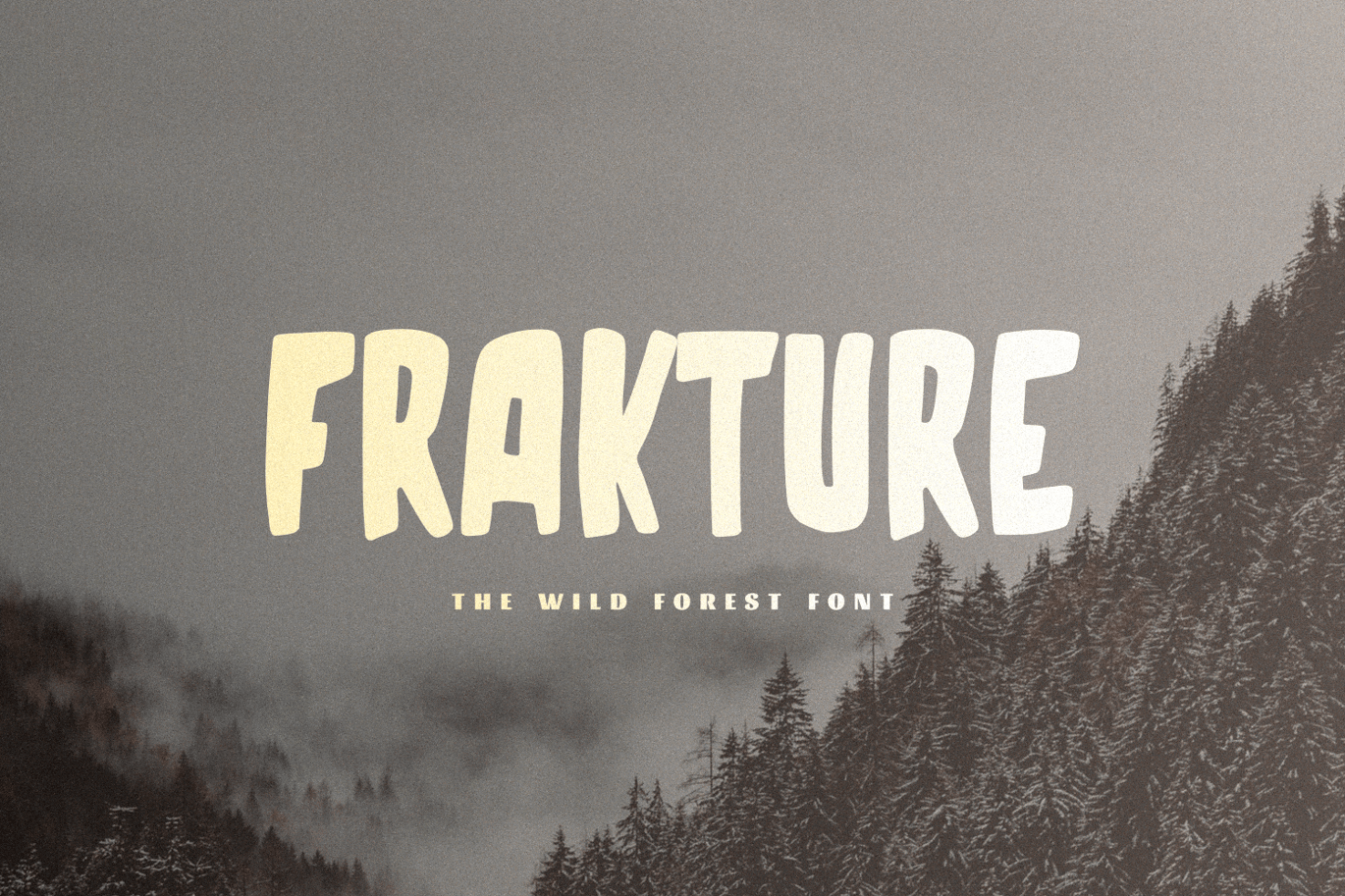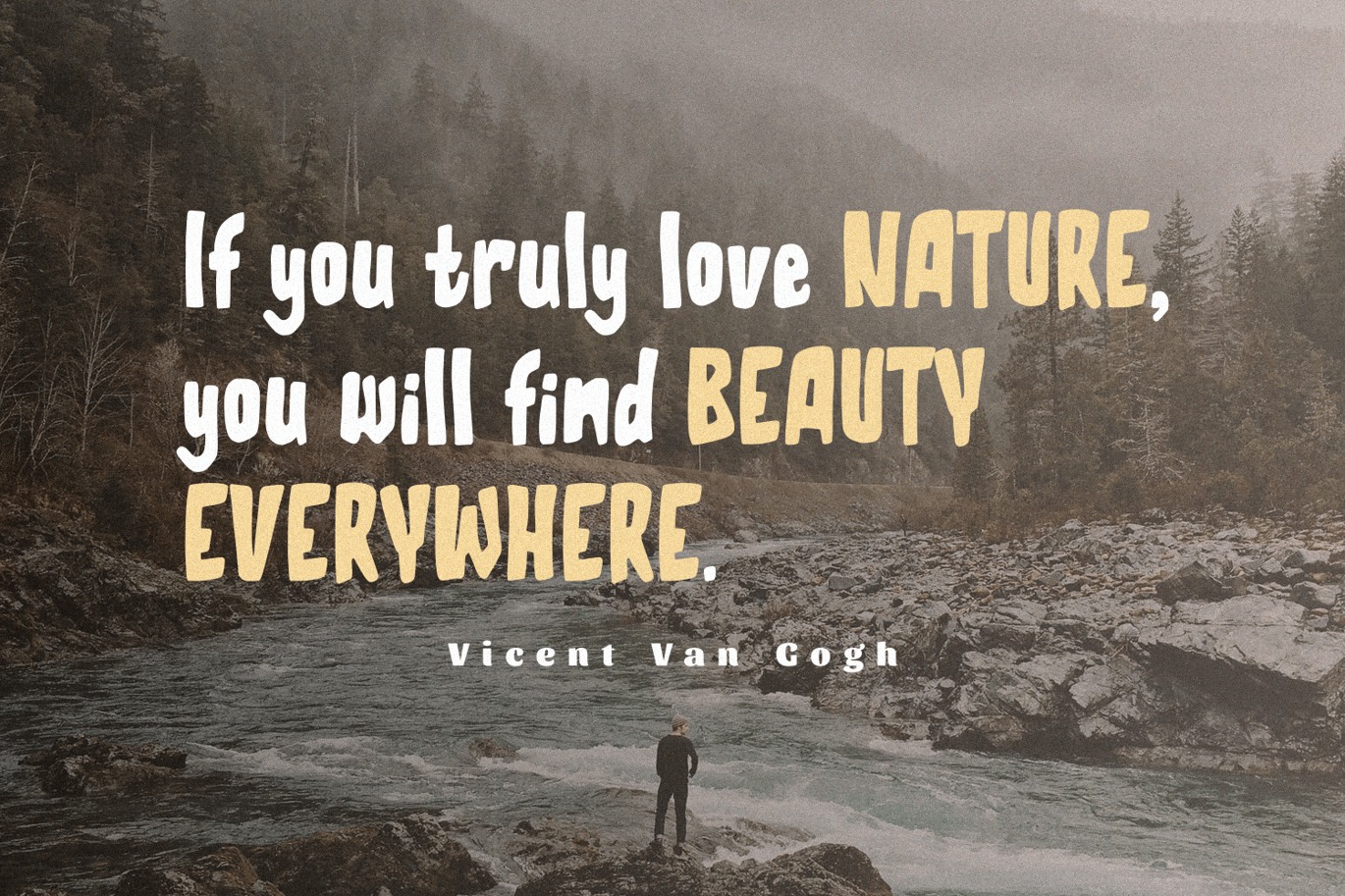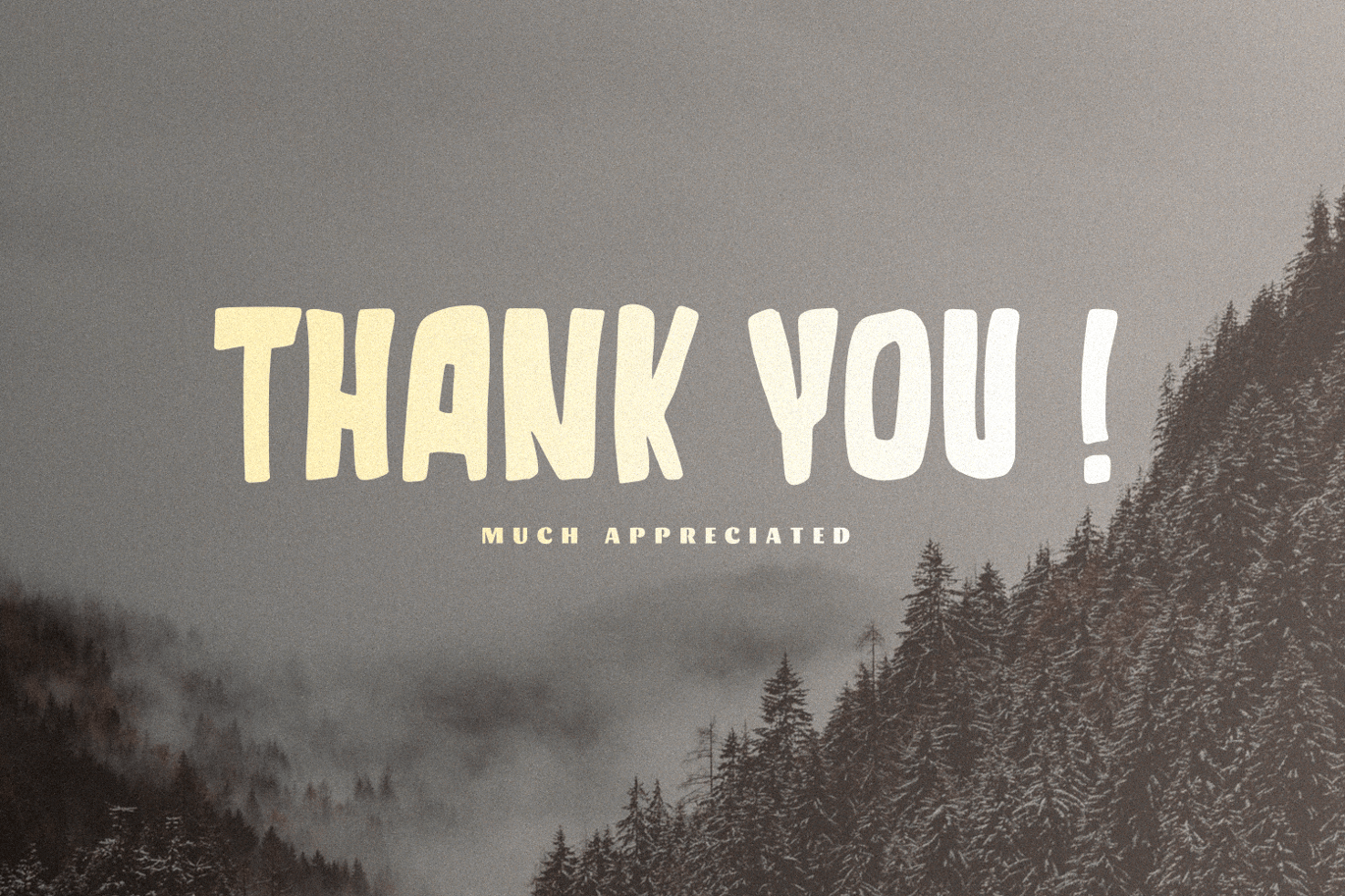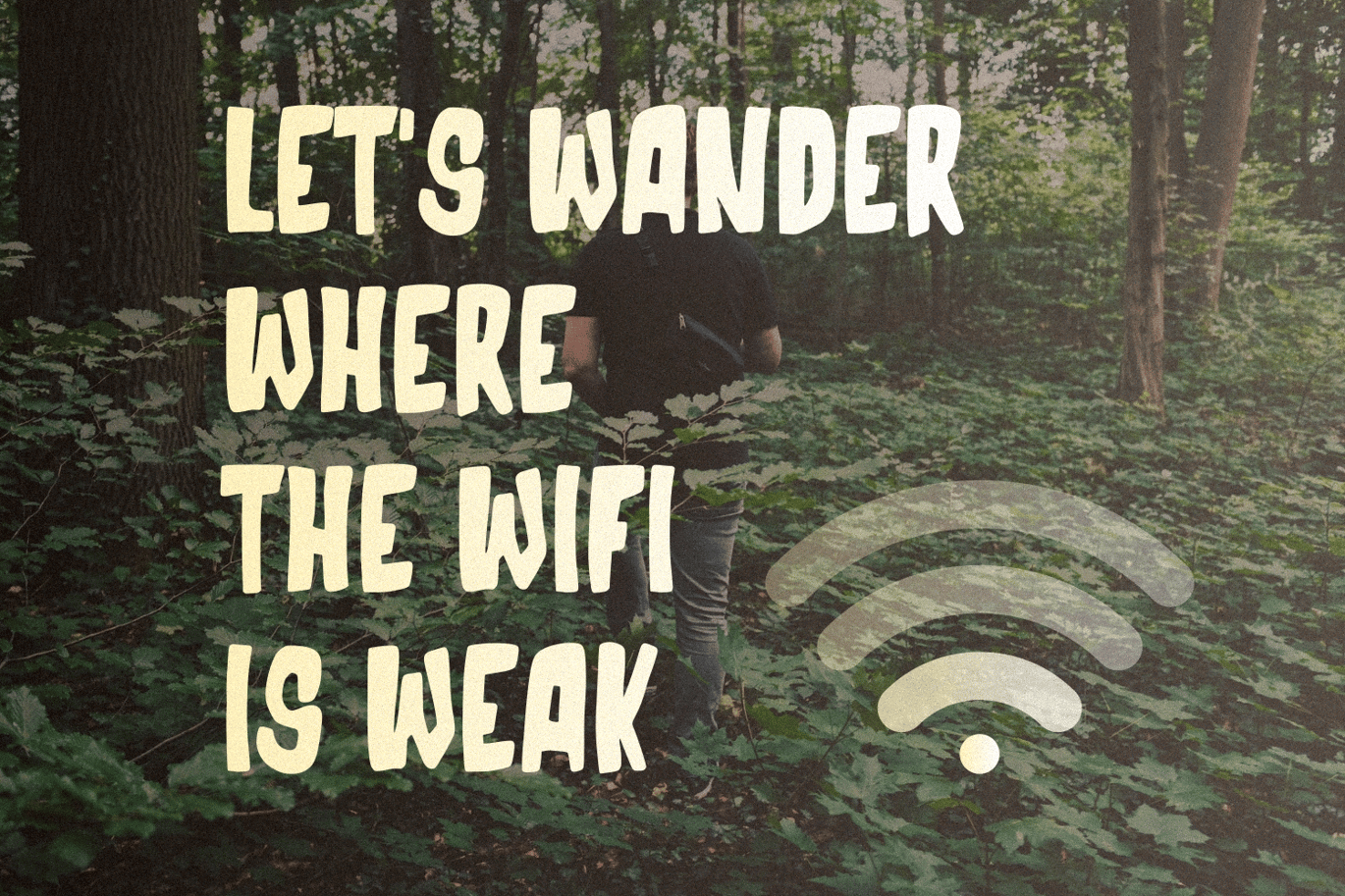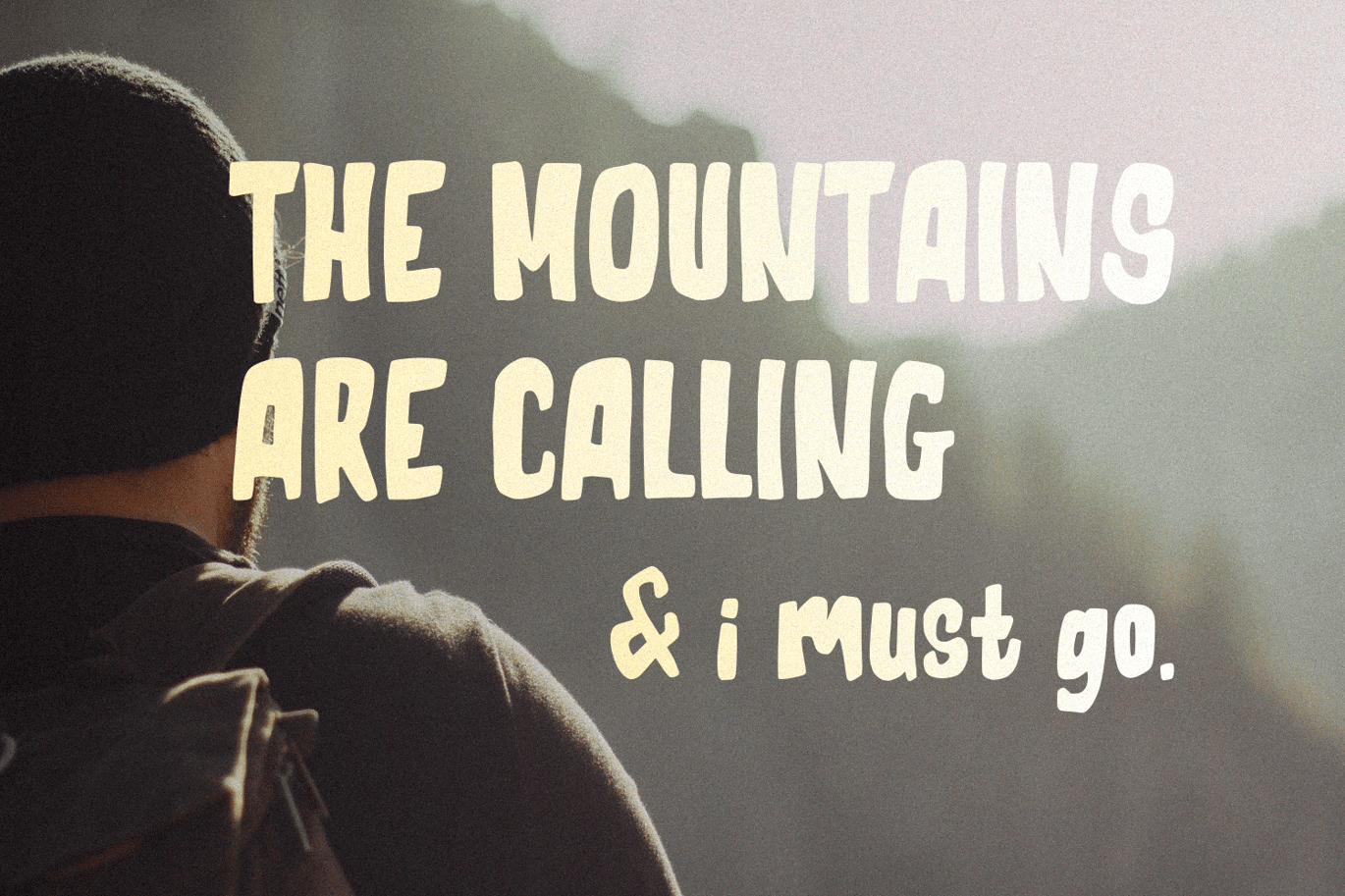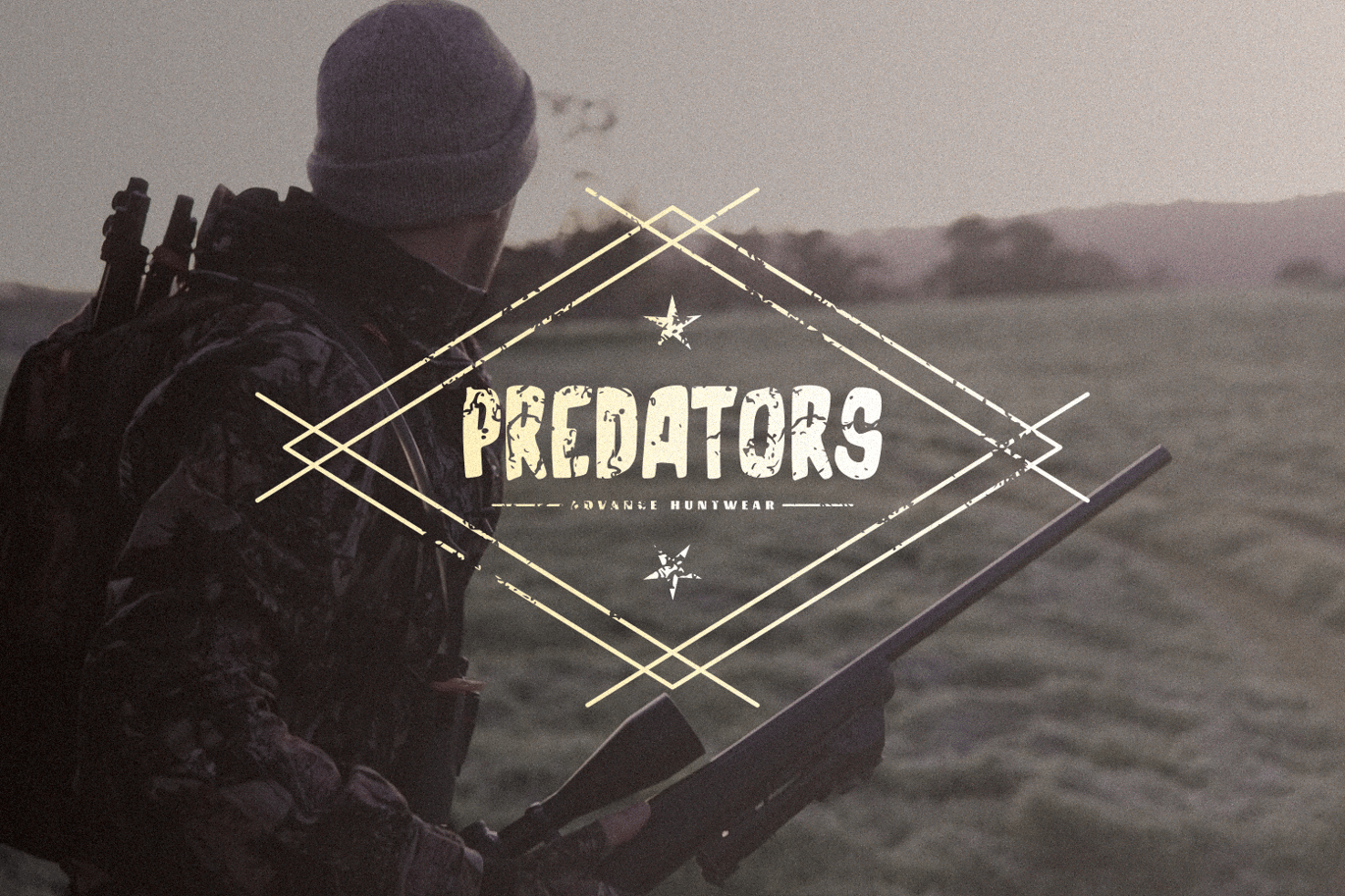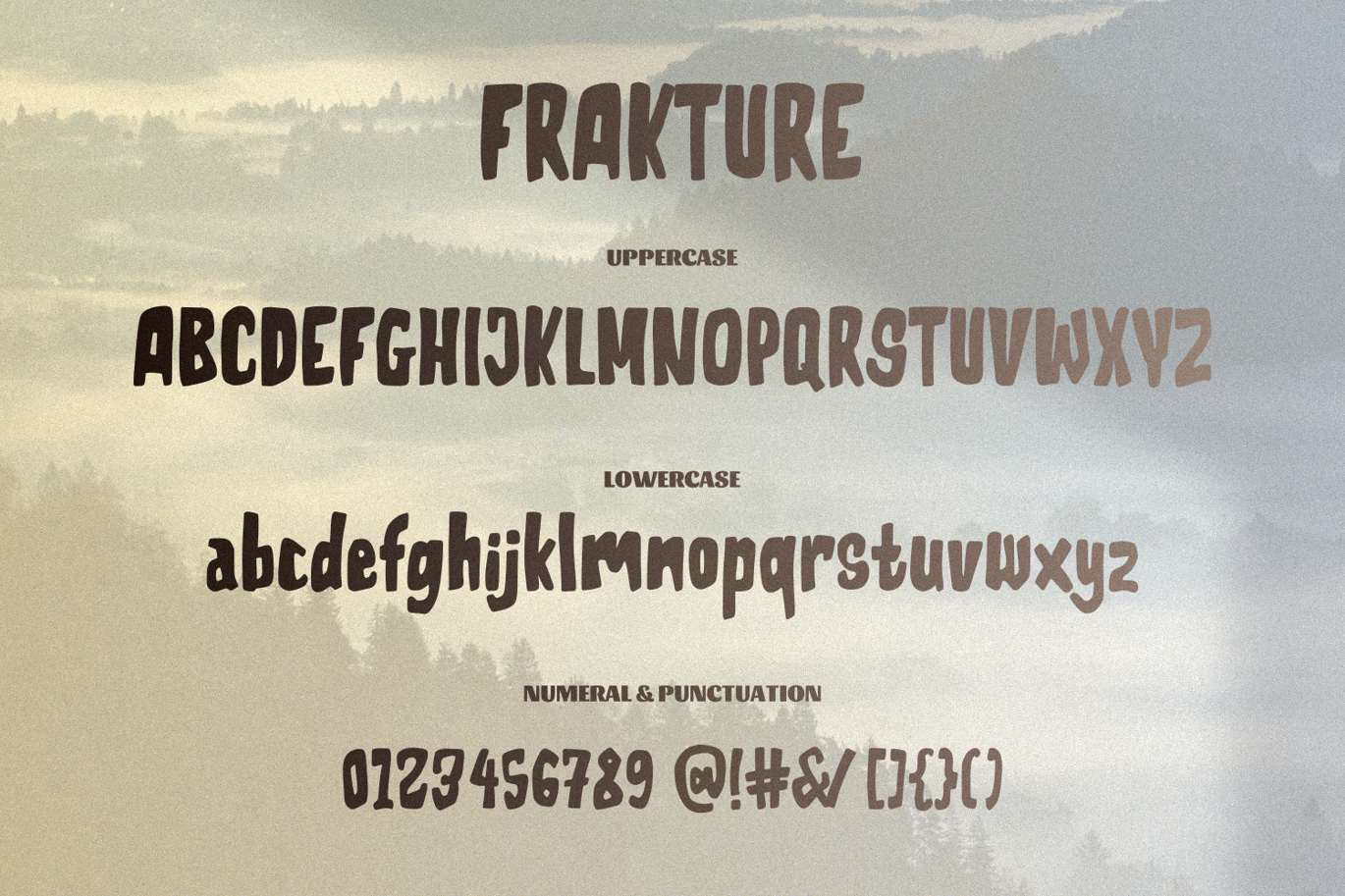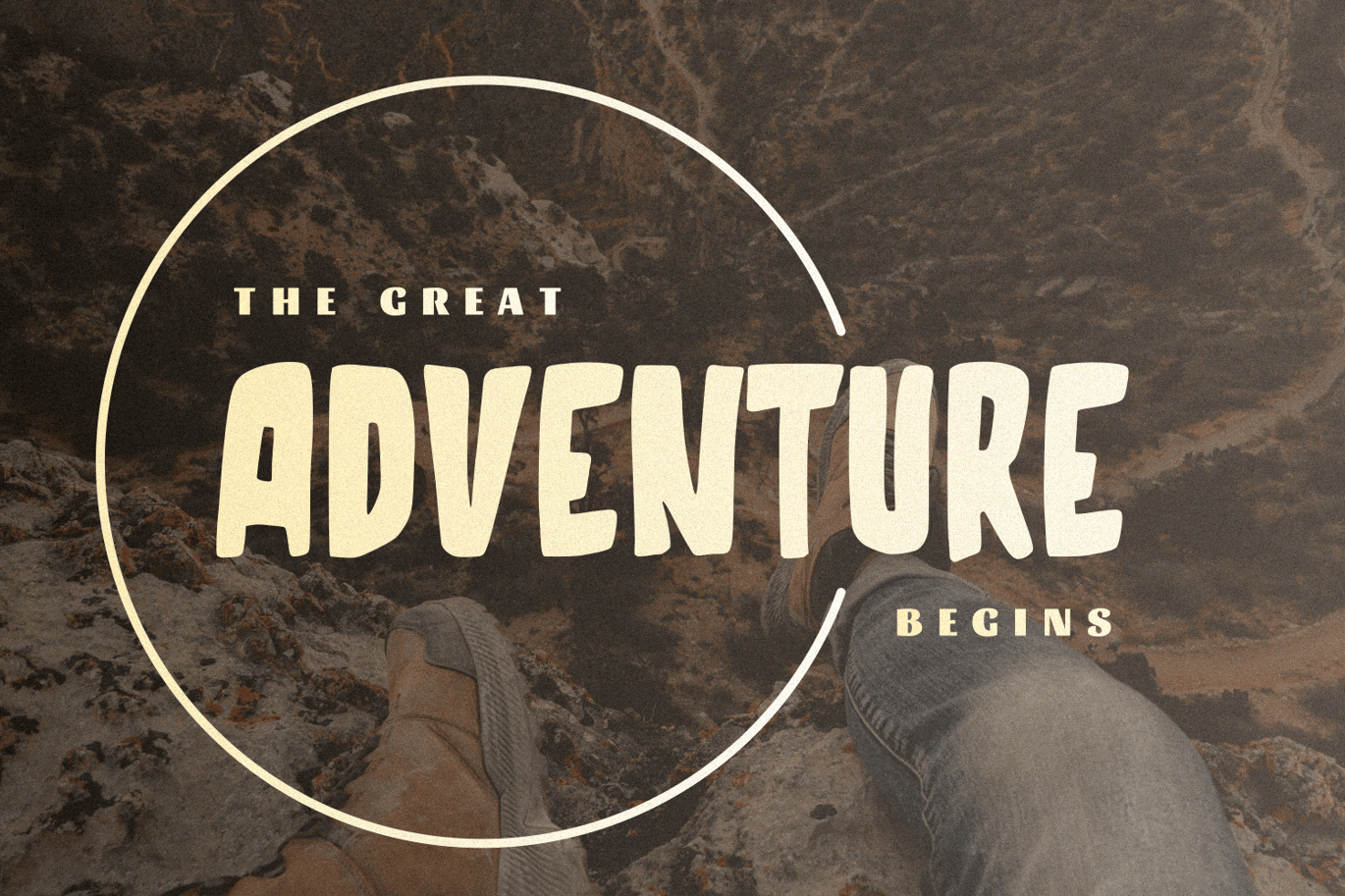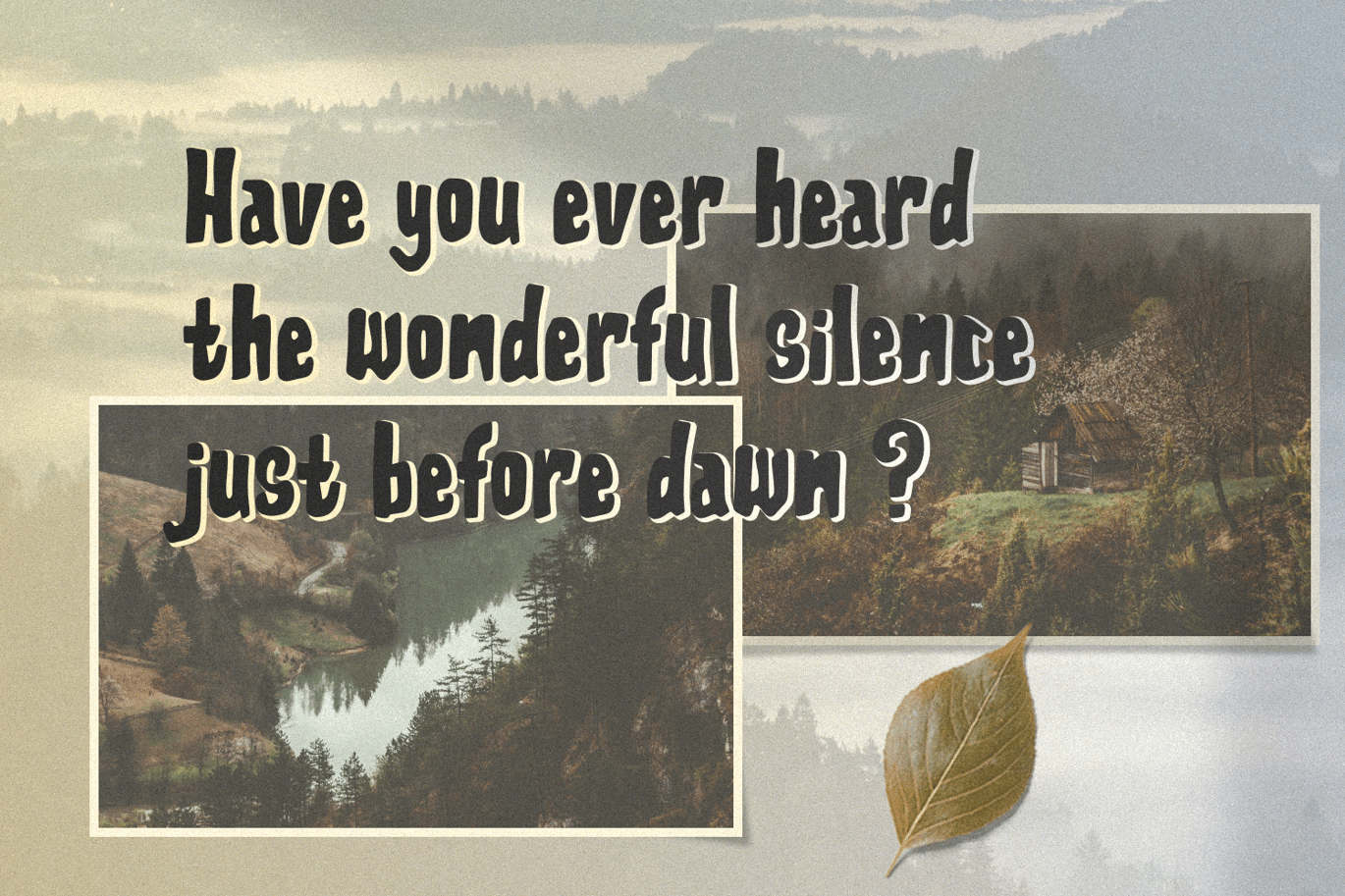
Frakture – The Wild Forest Font
Frakture – The Wild Forest Font. It comes with brush texture style which is perfect to make any design stand out! This font is perfect for branding, wedding invites, magazines, mugs, business cards, quotes, posters, and more.